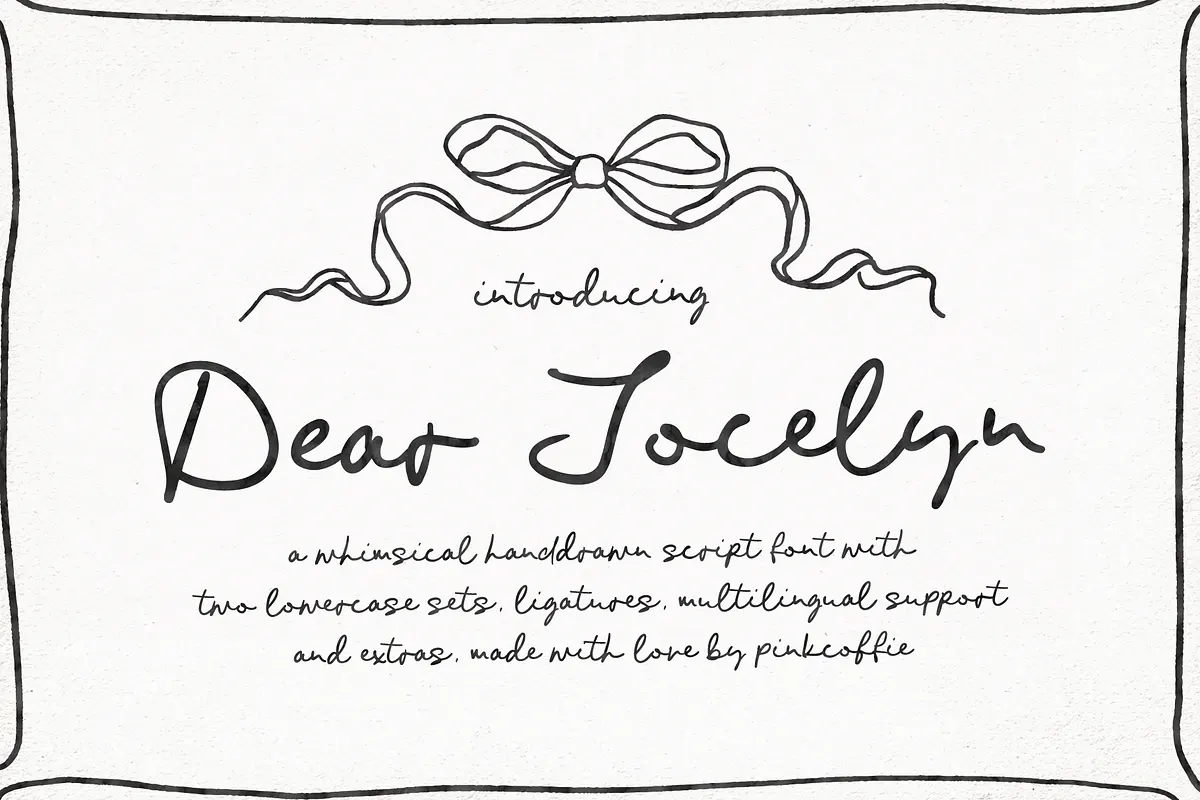
Dear Jocelyn | Handwritten Script Free Download
Dear Jocelyn | Handwritten Script Free Download is a beautifully crafted script font that exudes a warm and personal handwritten feel. Perfect for wedding invitations, branding, logos, and greeting cards, Dear Jocelyn offers elegant curves and flowing strokes that add sophistication to any project. Its organic design makes it ideal for projects that need a genuine, hand-lettered touch.